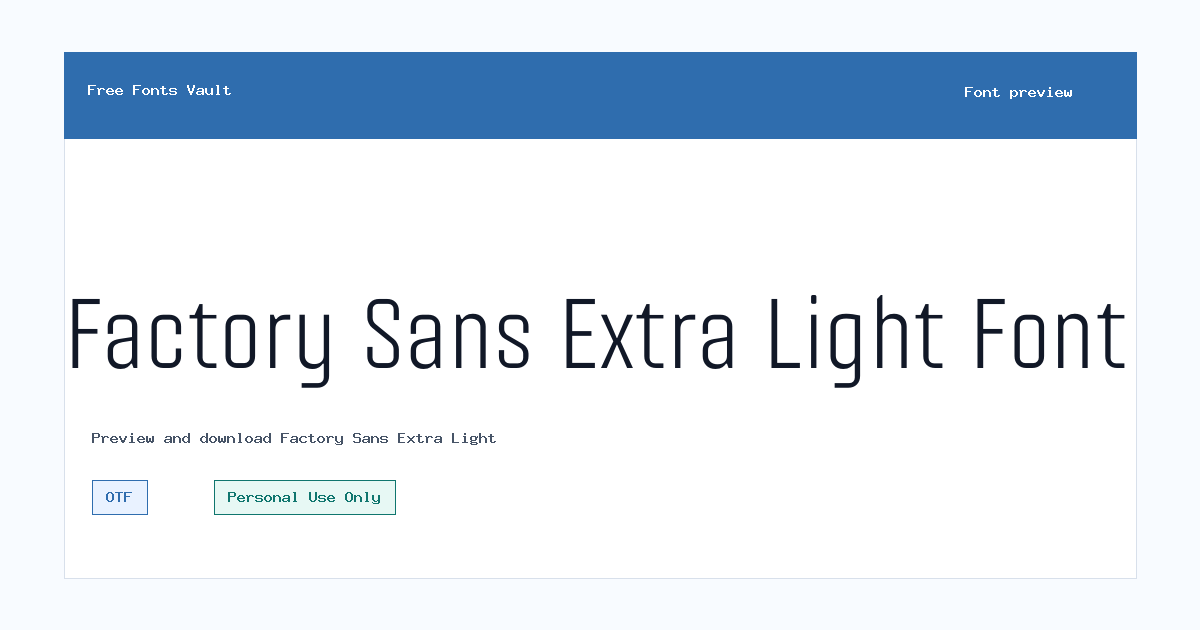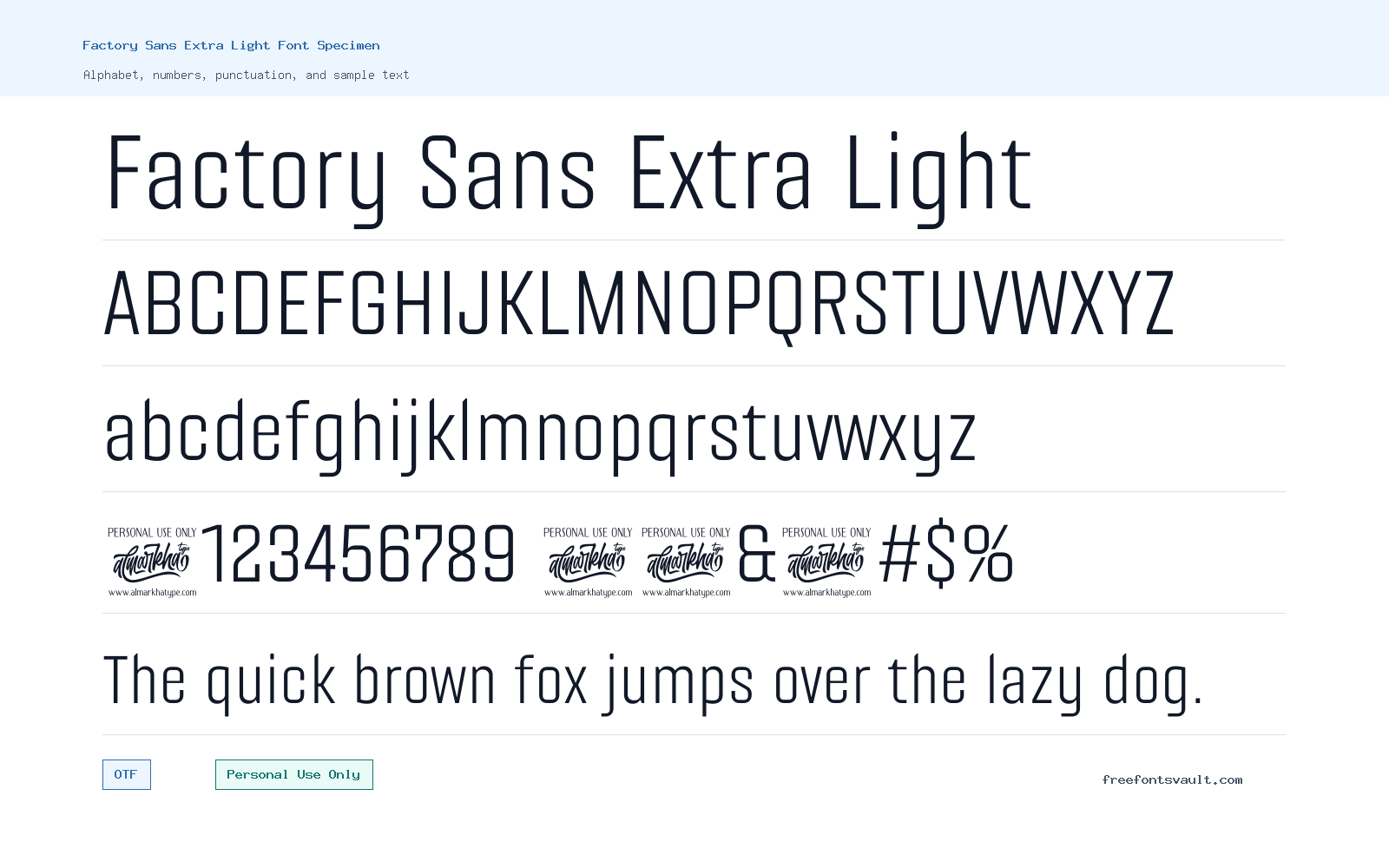
Factory Sans Extra Light
- Designer Rivo Dwi Adriansyah, Abdul Malik Wisnu, Almarkhatype Team
Factory Sans Extra Light is a light-weight sans serif font with a clean, understated look for designers who want a quiet typographic voice rather than a heavy display style.
About Factory Sans Extra Light
Factory Sans Extra Light works best when you need a simple sans serif with a slim presence. The Extra Light name suggests a lighter member of the Factory Sans family, and the font file is listed as an OTF with normal style and regular variant data. Its thin appearance makes it a useful choice for elegant headings, minimal poster layouts, fashion-style mockups, editorial title treatments, and clean branding experiments where the lettering should feel open and restrained. Because lighter fonts can lose strength at small sizes, it is worth testing your exact words in the preview before using it for body copy or dense interface text.
For logo work, Factory Sans Extra Light can be useful in early concepting when you want a neat sans serif base that does not overpower the rest of the design. It may suit short names, monograms, taglines, packaging mockups, social banners, and presentation covers, especially when paired with generous spacing and strong contrast. If the design needs to be read from far away, on a busy image, or at very small sizes, try increasing size, weight contrast, or letter spacing before committing. Thin sans fonts often look best with simple backgrounds, clear hierarchy, and enough breathing room around the text.
The font can also help with web mockups and UI concept screens, but it should be handled carefully. Use it for hero headings, menu concepts, section labels, or polished landing-page titles rather than long paragraphs. If you are designing a real website, check rendering across screen sizes and browsers, because extra-light strokes can appear weaker on some displays. Pairing it with a sturdier sans serif for body text can keep the layout readable while still giving headings a refined feel. A serif companion can also work if you want a more editorial contrast, but avoid pairing it with another very thin font unless the whole design is intentionally delicate.
- Light sans serif style suited to clean headings, minimal layouts, and restrained display typography.
- Best used in short text settings where thin strokes can remain clear and intentional.
- Works well for previewing logo concepts, poster titles, social graphics, web hero sections, and presentation covers.
- Needs careful testing at small sizes because lighter weights can lose readability on screens or busy backgrounds.
- Minimal poster titles and event graphics
- Logo drafts and brand concept mockups
- Fashion, beauty, lifestyle, or editorial-style layouts
- Website hero headings and clean landing-page mockups
- Social media quote cards, banners, and presentation slides
- Short labels, taglines, and typographic compositions
The listed designers are Rivo Dwi Adriansyah, Abdul Malik Wisnu, and the Almarkhatype Team. No foundry URL or separate designer link is provided.
Use Factory Sans Extra Light where the words are short and the layout gives the letters room to breathe. Test it in the preview with your actual title, logo name, or headline. For better readability, try larger sizes, slightly wider tracking, high color contrast, and simple backgrounds. Pair it with a stronger sans serif for body copy, captions, menus, and longer text blocks.
Is this font good for body text?
It is better suited to short text, headings, and display use. For paragraphs or interface text, pair it with a more readable regular-weight font.
What kind of designs does Factory Sans Extra Light suit?
It suits clean posters, refined headings, editorial layouts, presentation covers, social graphics, and minimal branding concepts where a light sans serif look is useful.
Who designed Factory Sans Extra Light?
The listed designers are Rivo Dwi Adriansyah, Abdul Malik Wisnu, and the Almarkhatype Team.